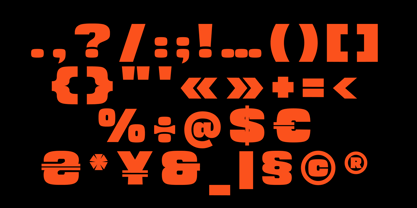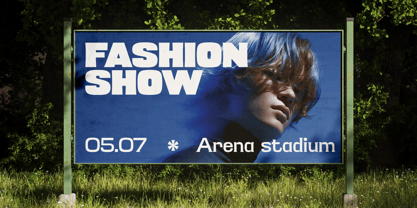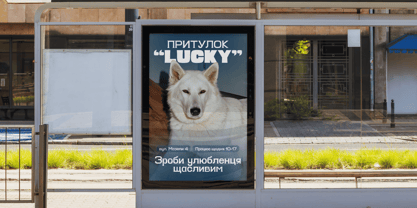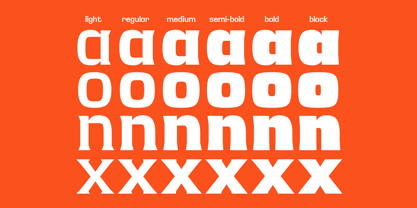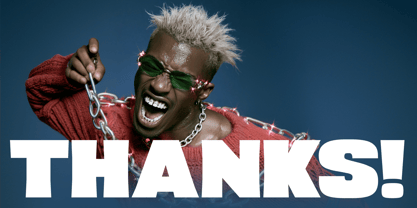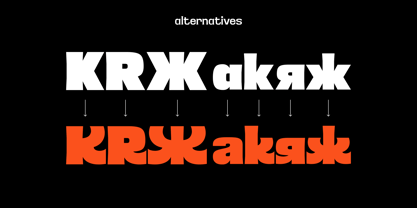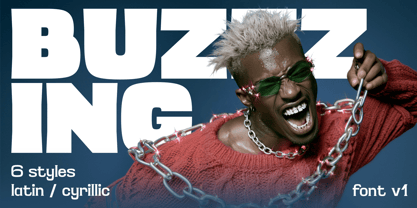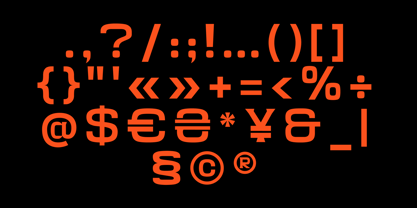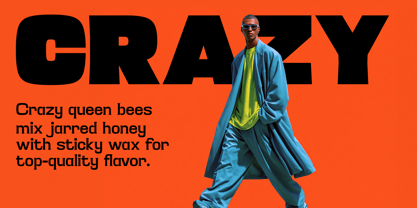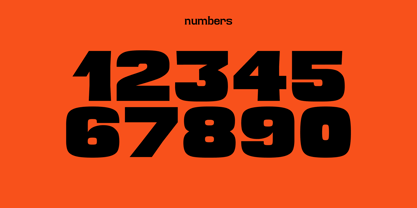
Buzzzing
Buzzzing is a high-impact, ultra-modern display typeface that draws its intense energy directly from the natural world. Inspired by the striking dichotomy between bees and their hives, this family features 6 distinct weights — ranging from Light to Black — designed specifically for contemporary branding, editorial design, and aggressive street-fashion graphics.
The Design Concept: The Sting & The Honey
The core idea behind Buzzzing is a structural evolution that mimics its namesake.
• In its Light weight, the typeface is engineered with sharp, crystalline inner counters and razor-sharp terminals — visualizing the piercing precision of a bee’s sting.
• As you move up the weight spectrum, this sharpness gradually melts away. By the time it reaches the massive Bold and Black weights, the hard edges completely disappear, dissolving into a beautifully blocky, hyper-dense, and smoothly rounded aesthetic that perfectly captures the viscous, flowing nature of liquid honey.
This unique transition allows designers to shift from a high-frequency, aggressive tone to a rich, solid, and comforting presence using a single font family. Buzzzing provides comprehensive typographic flexibility with expansive Latin and Cyrillic character sets, making it perfectly equipped for global branding campaigns and multilingual formatting.
Key Features
• 6 Versatile Weights: Light, Regular, Medium, Semi-Bold, Bold, and Black.
• Concept-Driven Dynamics: Sharp, sting-like geometry in the Light styles that fluidly transitions into sweet, ultra-bold honey blocks in the Black style.
• Global Language Support: Complete Latin Extended and Cyrillic character sets.
• Design Use Cases: Perfect for high-fashion lookbooks, heavy editorial headlines, massive poster typography, streetwear branding, and loud product packaging.